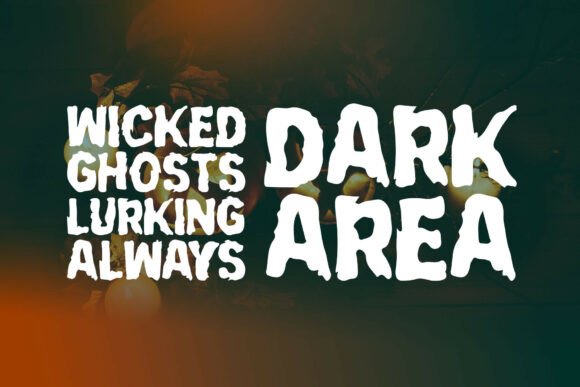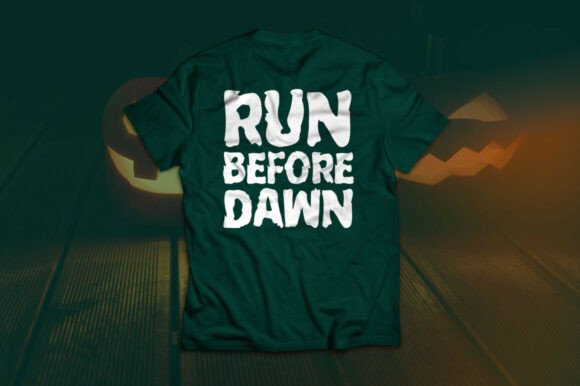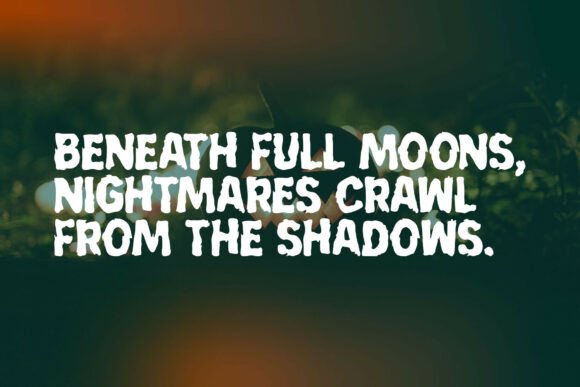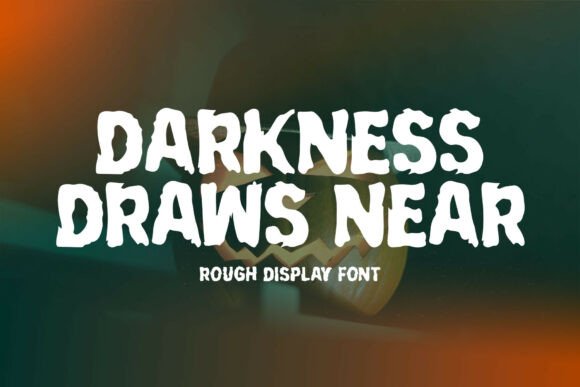
Unleash the Power of Darkness: A Comprehensive Guide to the Darkness Draws Near Font
In the world of typography, fonts play a crucial role in conveying the tone and personality of a design. For projects that demand a raw, dramatic touch, the Darkness Draws Near font is an excellent choice. This rugged display font is designed to make a statement, and in this article, we’ll explore its features, uses, and benefits for designers and crafters.
Introducing Darkness Draws Near: A Font with an Intense Personality
Darkness Draws Near is a bold, rugged font that exudes an intense, gritty personality. Its raw, edgy aesthetic makes it perfect for projects that require a dramatic touch. Whether you’re designing a logo, creating a poster, or crafting a bold brand identity, this font delivers striking visual impact.
Versatility at Its Best: Uses for Darkness Draws Near
One of the key benefits of the Darkness Draws Near font is its versatility. It works seamlessly across various design applications, including:
- Logos: Create a bold, memorable logo that makes a statement.
- Apparel: Design eye-catching t-shirts, hoodies, and other apparel that demands attention.
- Posters and Flyers: Grab your audience’s attention with bold, dramatic posters and flyers.
- Album Covers: Add a raw, edgy touch to your music album covers.
- Web Headers: Create striking web headers that set the tone for your website.
- Print Materials: Use Darkness Draws Near for brochures, business cards, and other print materials that require a bold, rugged aesthetic.
PUA Encoding: Effortless Access to Glyphs, Swashes, and Alternate Characters
The Darkness Draws Near font is PUA (Private Use Area) encoded, making it easy to access all glyphs, swashes, and alternate characters. This feature allows designers to experiment with different typography styles, adding an extra layer of creativity to their designs.
Dark-Themed Designs and Bold Branding
Darkness Draws Near is particularly well-suited for dark-themed designs and bold branding initiatives. Its raw, gritty aesthetic adds a layer of intensity to any design, making it perfect for:
- Dark-themed designs: Create designs that explore the darker side of life, from mysterious landscapes to eerie atmospheres.
- Bold branding: Develop a bold brand identity that demands attention and exudes confidence.
Tips for Using Darkness Draws Near Effectively
To get the most out of the Darkness Draws Near font, consider the following tips:
- Use it sparingly: Due to its bold, rugged aesthetic, it’s best to use Darkness Draws Near sparingly to avoid overwhelming the design.
- Experiment with colors: Try pairing Darkness Draws Near with bold, contrasting colors to add an extra layer of visual impact.
- Mix and match: Combine Darkness Draws Near with other fonts to create a unique typography style.
In conclusion, the Darkness Draws Near font is a powerful tool for designers and crafters looking to add a raw, dramatic touch to their projects. With its rugged display aesthetic, versatility, and PUA encoding, this font delivers striking visual impact across various design applications. Whether you’re creating dark-themed designs or bold branding initiatives, Darkness Draws Near is an excellent choice.